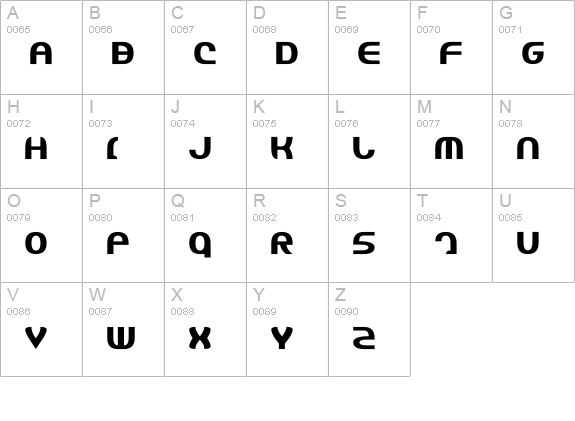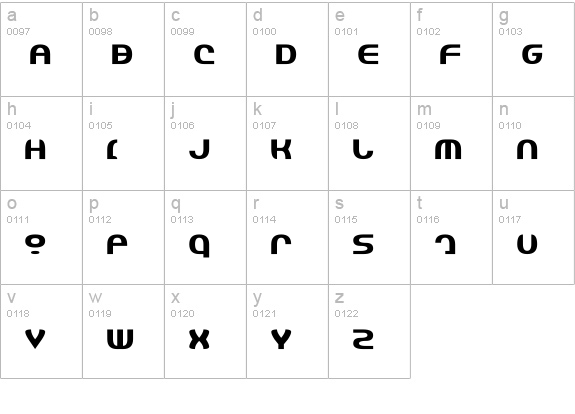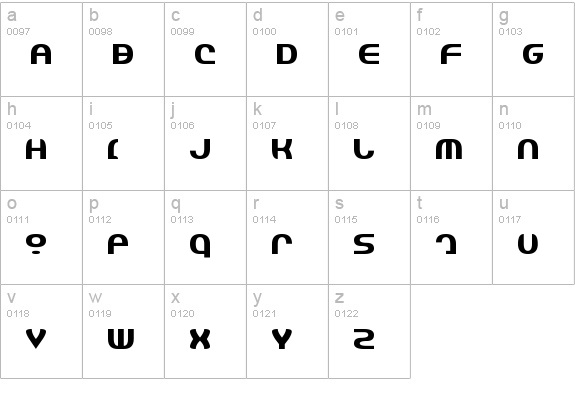
Jannisary Shield Font Details
Introducing Jannisary Shield, a captivating and bold font that exudes power and sophistication. Inspired by the strength and resilience of the legendary Janissary troops, this typeface is the perfect balance between elegance and authority. With its meticulously crafted letterforms, Jannisary Shield commands attention and demands respect. Each stroke is precision-engineered to create a strong and commanding presence, making it an ideal choice for logos, headlines, and impactful designs. The versatility of Jannisary Shield knows no bounds. Whether you're designing a poster for a historical event or creating a modern branding identity, this font effortlessly adapts to any project, effortlessly bridging the gap between tradition and contemporary design. But here's the best part – Jannisary Shield is freely available to download at FontsMarket.com. Yes, you read that right. You can enhance your designs with this remarkable font without spending a dime. Its exceptional quality combined with the freedom to use it in your personal and commercial projects makes Jannisary Shield a valuable asset for designers and creatives alike. So, don't miss out on this incredible opportunity. Unleash the power of Jannisary Shield and elevate your designs to new heights. Download it for free at FontsMarket.com and witness the impact it can have on your next project.